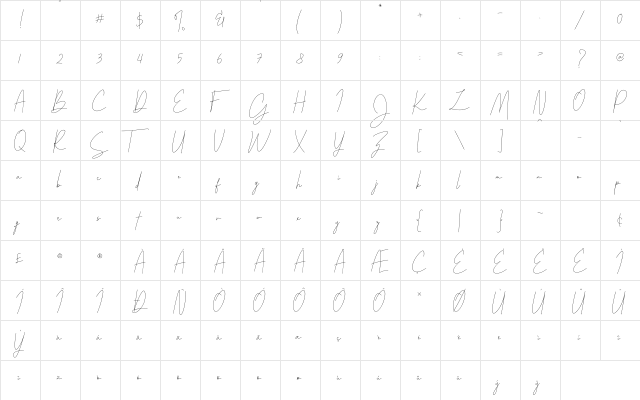
Parakan Regular
Design Context for Parakan Typeface
Parakan is a composed and adaptable typeface that performs quietly and consistently across a wide range of design contexts.